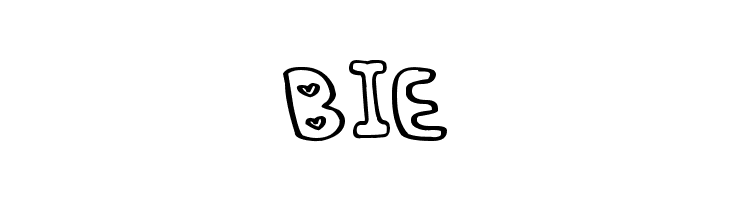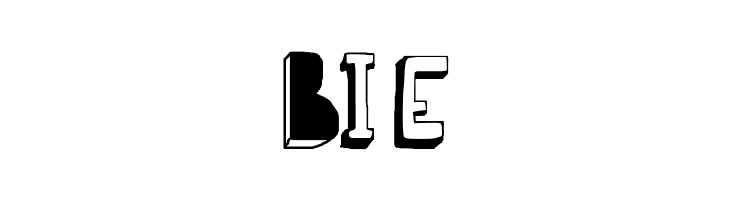
A decorative font with intricate floral patterns within each character.
A vintage, typewriter-inspired font with a distressed, organic look.
A distressed, stencil-like font with a vintage, grunge aesthetic.
A bold, hand-drawn font with an artistic and playful style.
A bold, geometric stencil font with rounded edges and uniform weight.
A bold, distressed stencil-style font with a rugged, military-inspired look.
A bold, distressed stencil font with a rugged, industrial feel.
A bold, decorative font with a distressed, vintage look.
A bold, italicized decorative font with a distressed, vintage texture.
A bold, distressed decorative font with a vintage, grunge texture.
A bold, italicized font with thick outlines and a dynamic, retro-modern style.
A futuristic, geometric font with clean lines and a modern aesthetic.
A futuristic, geometric font with a 3D outlined effect.
A bold, 3D italic font with a futuristic and dynamic style.
A bold, modern font with geometric and futuristic elements.
A sleek, futuristic italic font with geometric precision and dynamic style.
A modern, geometric font with a bold, italicized style.
A bold, modern font with clean lines and a geometric structure.
A bold, playful font with cartoonish serifs and rounded strokes.
A playful, decorative font featuring cartoon dog illustrations.
A bold, brush-like font with dynamic, calligraphic strokes.
A bold, calligraphic font with sharp, angular strokes and dynamic movement.
A bold, brush-style font with a shadow effect, combining traditional calligraphy with modern flair.